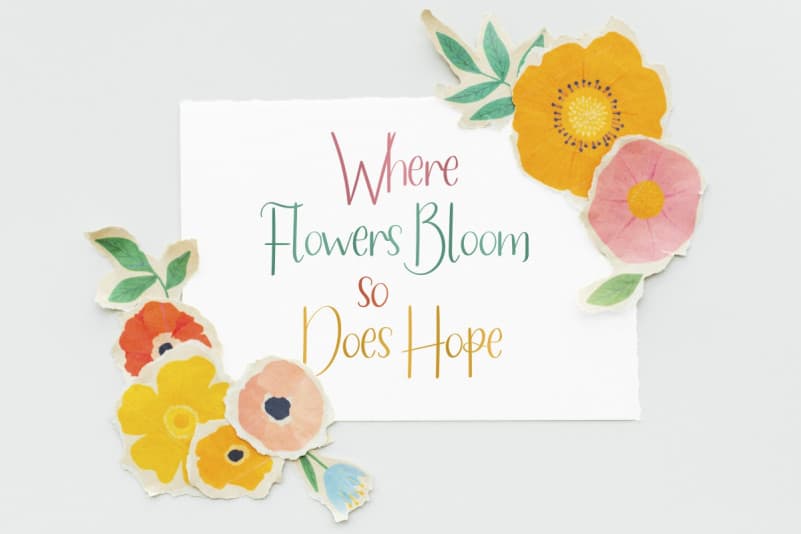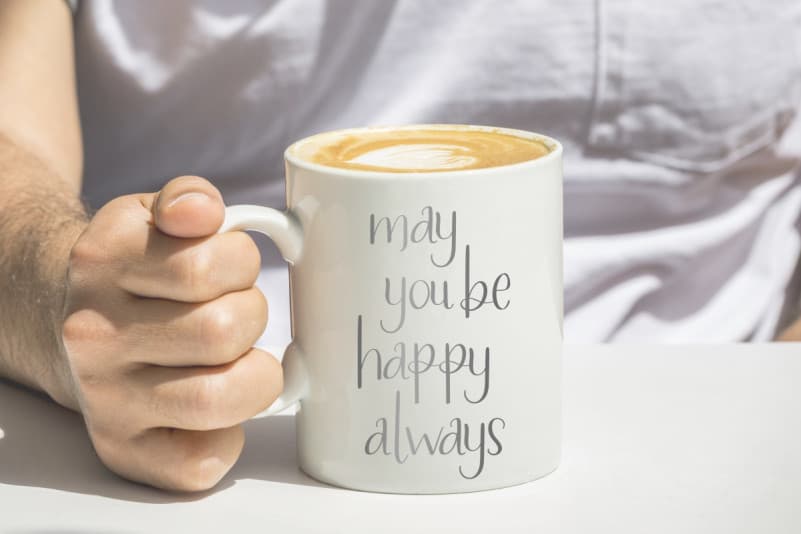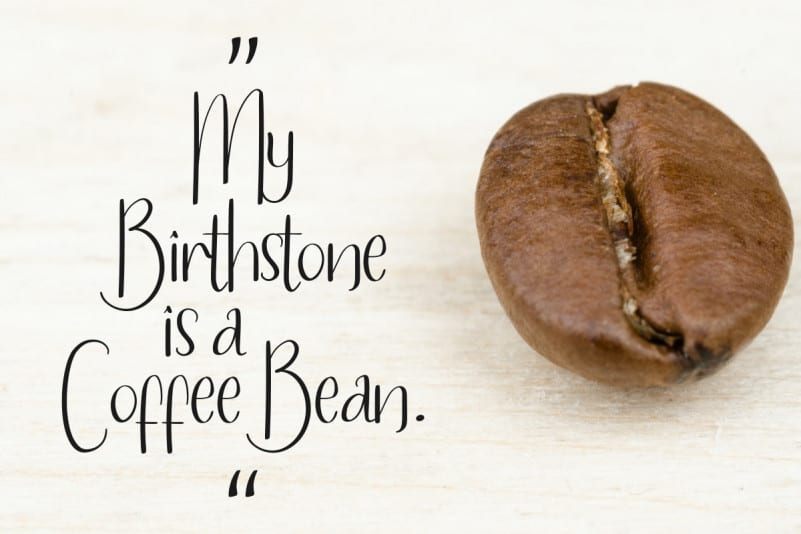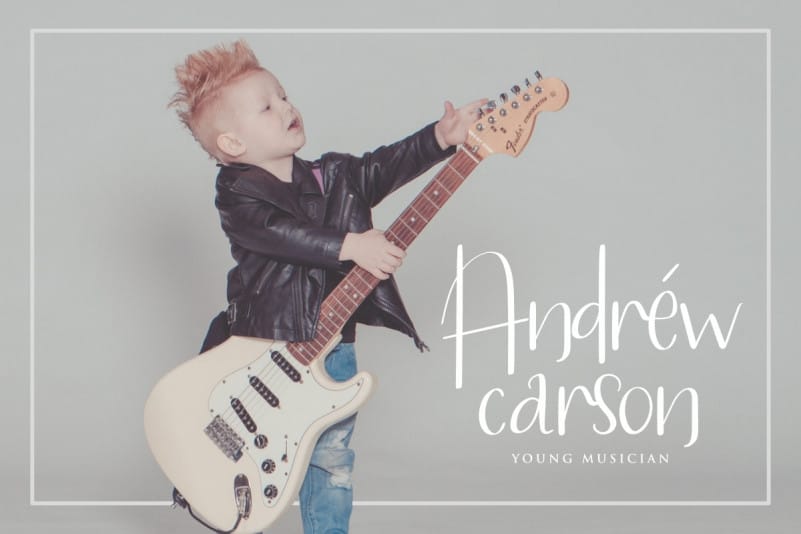
Hanry Potter Handwriting Font
Hanry Potter Handwriting Font is an exclusive handmade font with unique styles : fun, cartoon, casual, stylish and classic style. It has a great characters set, perfectly managed with well spaced and kerning. Hanry Potter Font will be great for any projects including : branding and logo (with extended license), stationery, business card, signage, flyer, brochure etc. Many industries will be match for this typeface: school, wedding, events, non profits foundation, florist, gardening, makeup artist, travel, hotel, musician etc